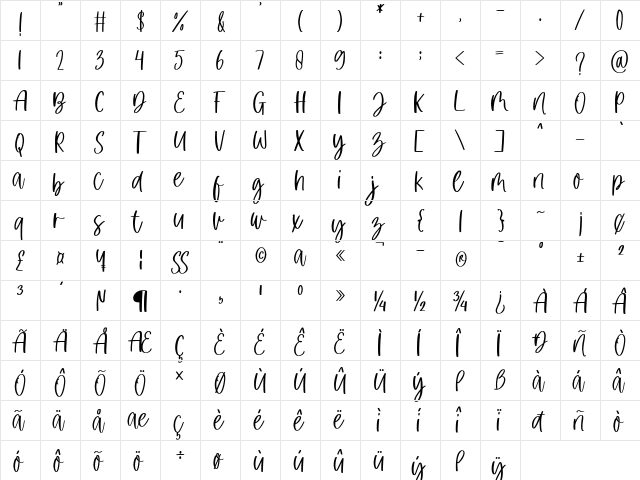
little pumpkin Regular
| Designer | Muhamad Fikry Nuralif |
Design Context for little pumpkin Typeface
little pumpkin is a composed and adaptable typeface that performs quietly and consistently across a wide range of design contexts.